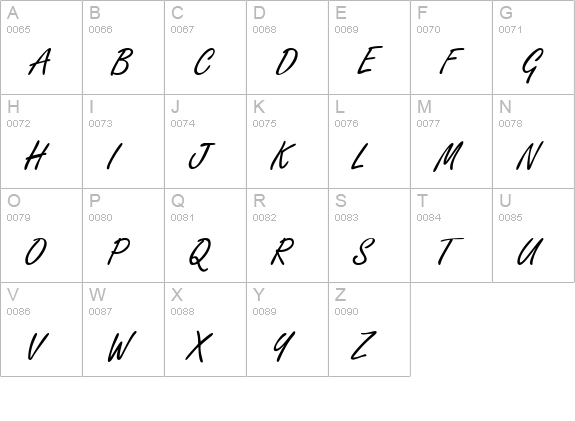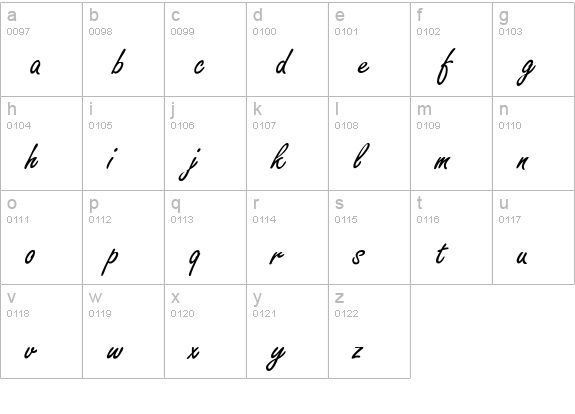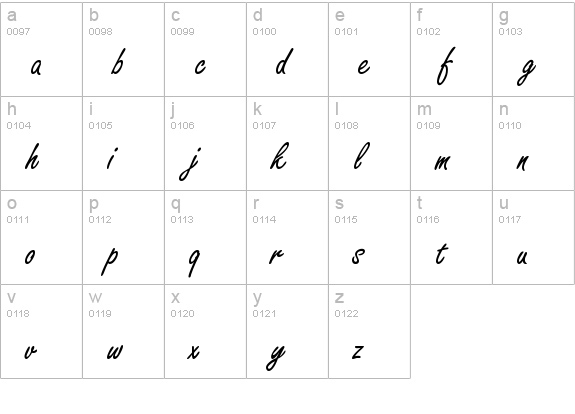
Freelance Script Font Details
Freelance Script font is a beautifully elegant typeface that exudes sophistication and charm. Its graceful curves and flowing lines make it perfect for adding a touch of luxury to any design project. This script font is versatile and can be used for a wide range of applications, from wedding invitations to branding materials. The best part about Freelance Script font is that it is completely free to download at FontsMarket.com. This means that you can easily access this stunning font and enhance your creative projects without any cost. With its timeless appeal and effortless style, Freelance Script font is sure to elevate your designs and leave a lasting impression. Download this exquisite font today and unleash your creativity with ease.